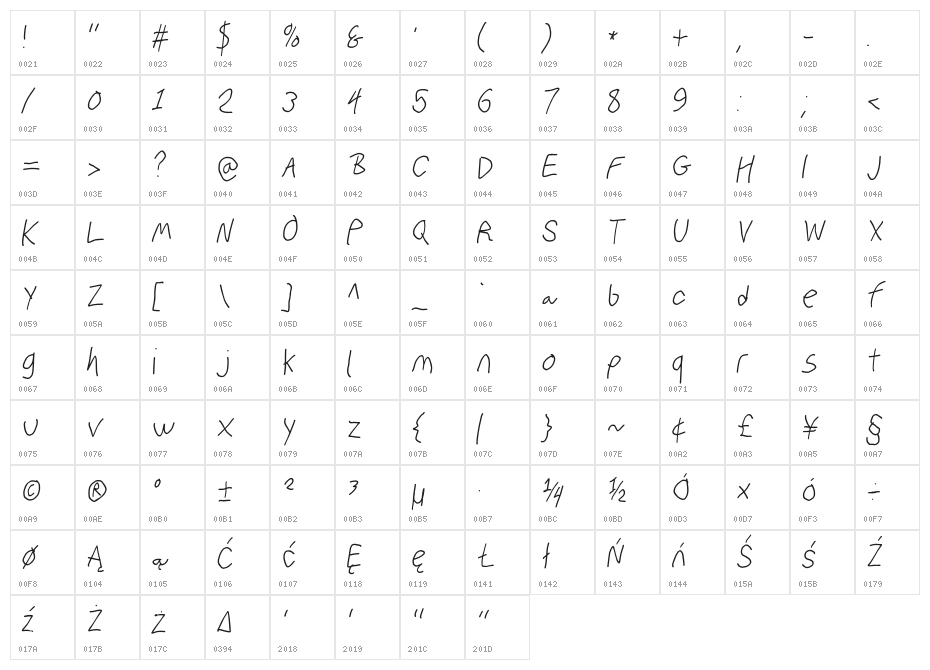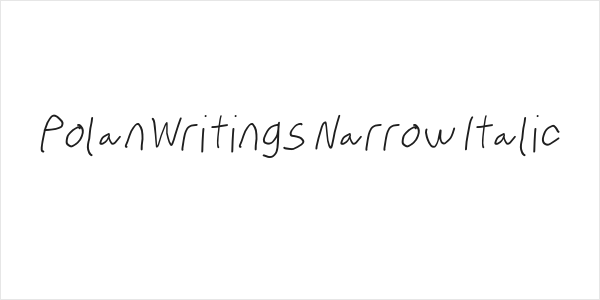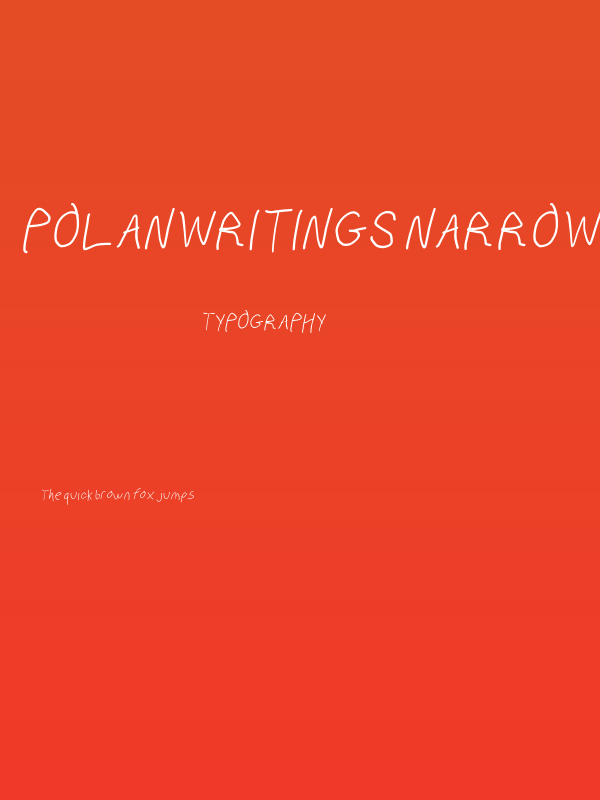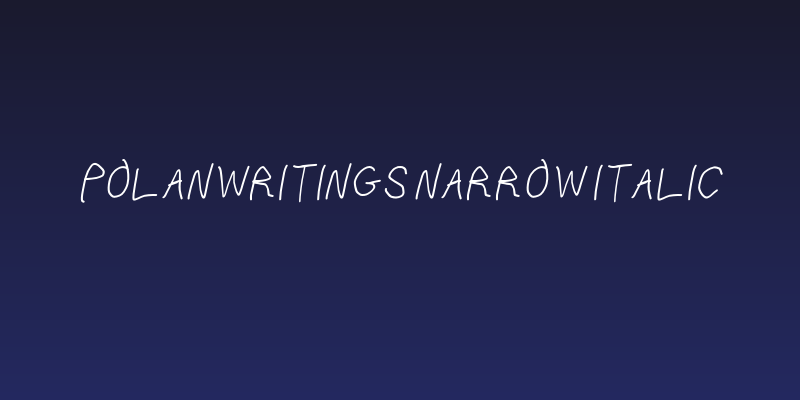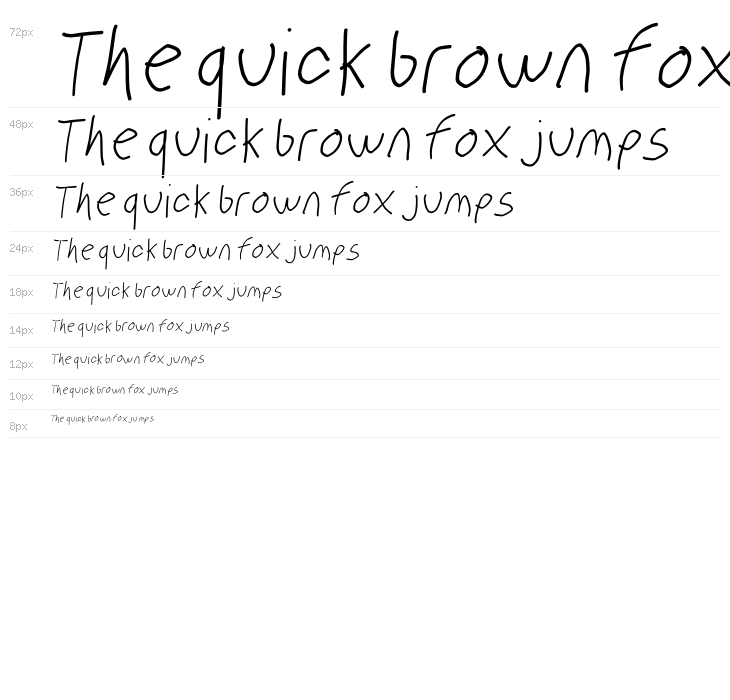
PolanWritings Narrow Italic Font
PolanWritings Narrow Italic Description
This font features a handwritten style with a narrow and italicized appearance. The characters are slightly slanted, giving a casual and informal look. The strokes are consistent in width, providing a uniform appearance across all letters and numbers. The uppercase and lowercase letters maintain a cohesive style, with rounded edges and a smooth flow. The numbers and special characters are clearly legible, complementing the overall design. This font exudes a personal touch, making it ideal for projects that require a human element.
| Use Case | Headlines, Personal notes, Creative projects |
| Proposed Projects | Ideal for personal notes, invitations, greeting cards, and creative projects that require a personal touch. |